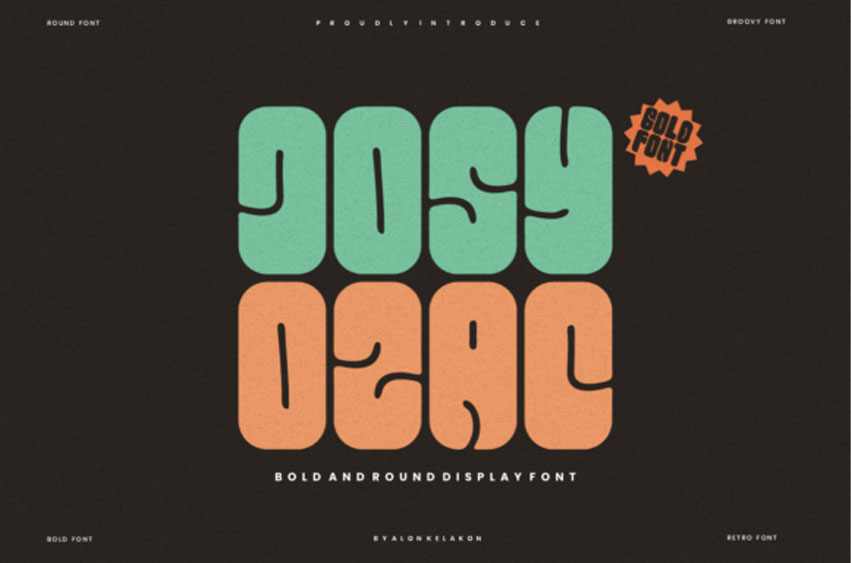
Josyozac Font is a bold, all-caps display font featuring the perfect amount of trendiness.
Whether you’re using it for crafting, digital designing, presentations, or greeting card making, it’s perfect!